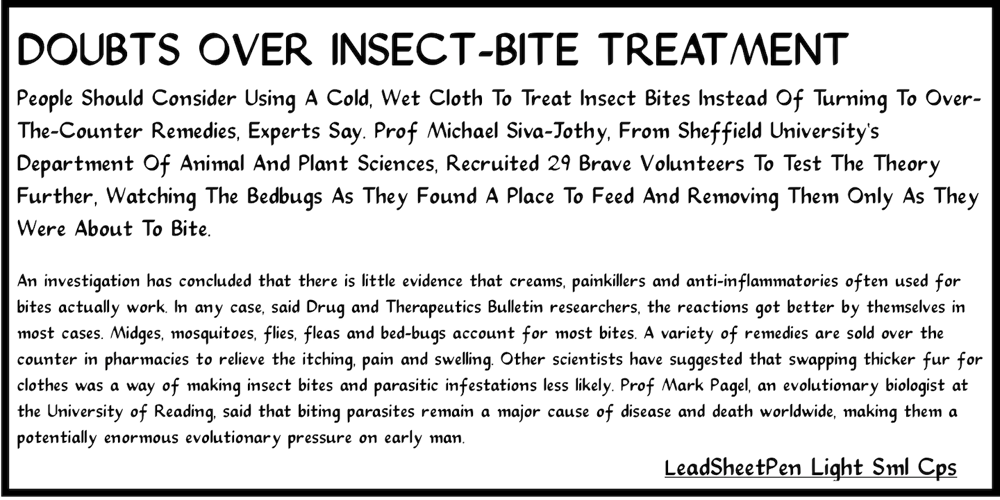
LeadSheet Pen Font Family was designed by Nor Eddine Bahha and published by NorFonts. LeadSheet Pen contains 11 styles and family package options. LeadSheet Pen font is my handwriting emulation of an Engraving font style. It is a handwritten text font witch can be used with any word processing program for text and display use, print and web projects, CAD, Headlines, apps and ePub, comic books, graphic identities, branding, editorial, advertising, scrapbooking, cards and invitations and any casual lettering purpose… or even just for fun!The set comes with 12 weights in Light, Normal, Heavy Small-Caps and Expanded each with Italic version.